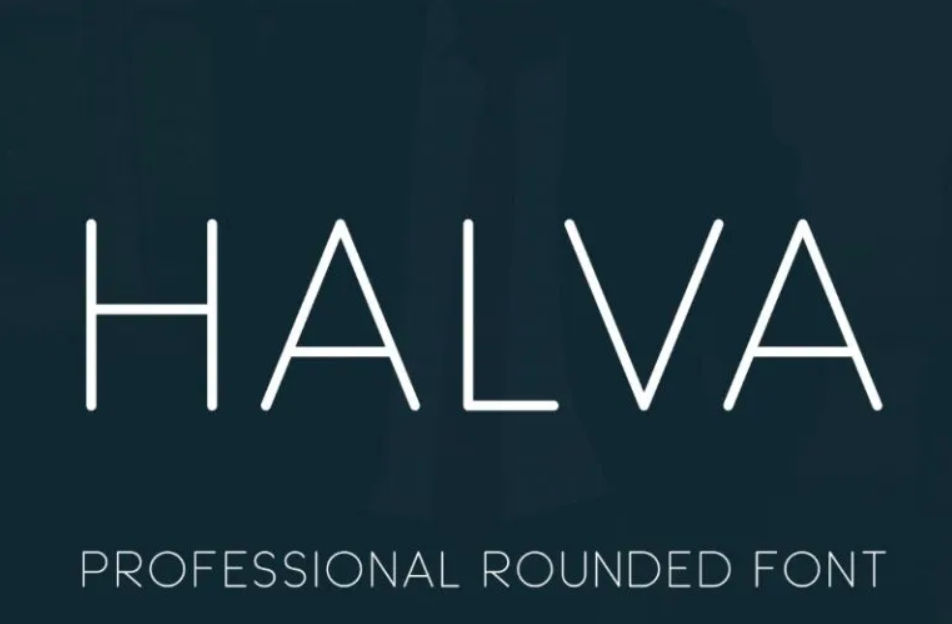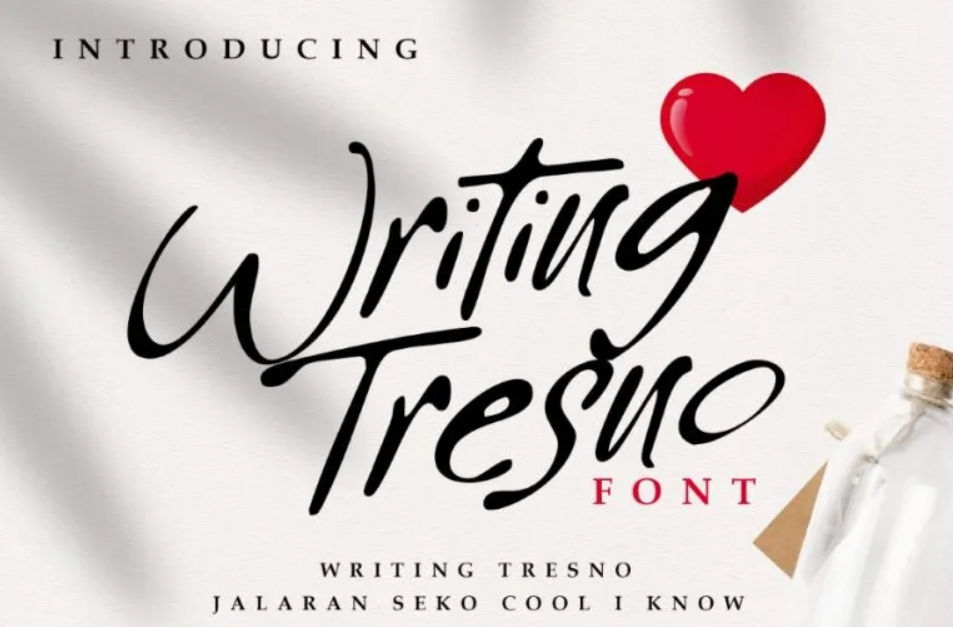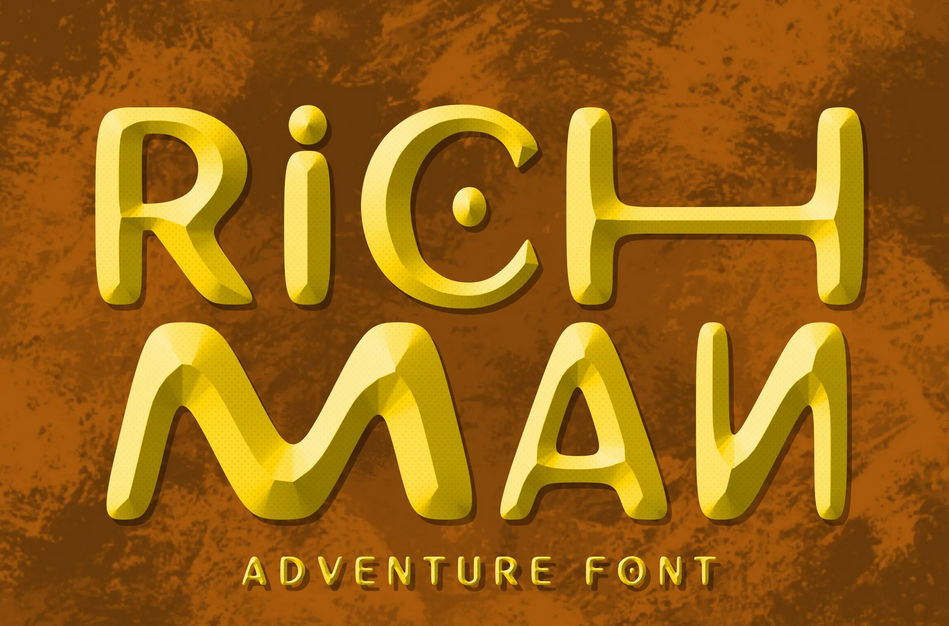
The best fonts for luxury brands cast a spell over elite clients with their splendid simplicity and high contrast. Their symmetrical geometric designs often enhance their luxurious appearances. Our fonts can not only provide you with those qualities but also uniqueness for your brand to be luxurious, attractive, and original.
Key takeaways:
- The most fitting font for luxury brands exhibits high contrast and simplicity.
- Combining different font styles can enhance originality and elevate a brand’s exclusivity.
- Font personality defines brand identity, and even bold fonts like Gojira, Brush Heats, and Richman can exude luxury when used with refined design elements.
10 Luxury Fonts for Brands for Glamorous Designs
What type of font is used for luxury brands? Luxurious brands tend to use fonts that have less complexity and clean lines. Most of the time, they have symmetrical letter shapes with impressive contrast. So, below are some of our fonts, which possess those characteristics along with their uniqueness.
1. HALVA
Halva’s symmetrical and simple letter shapes increase the font’s formal appearance. Additionally, the constant contrast will impress high-ranked clients.
2. Modern Deluxe
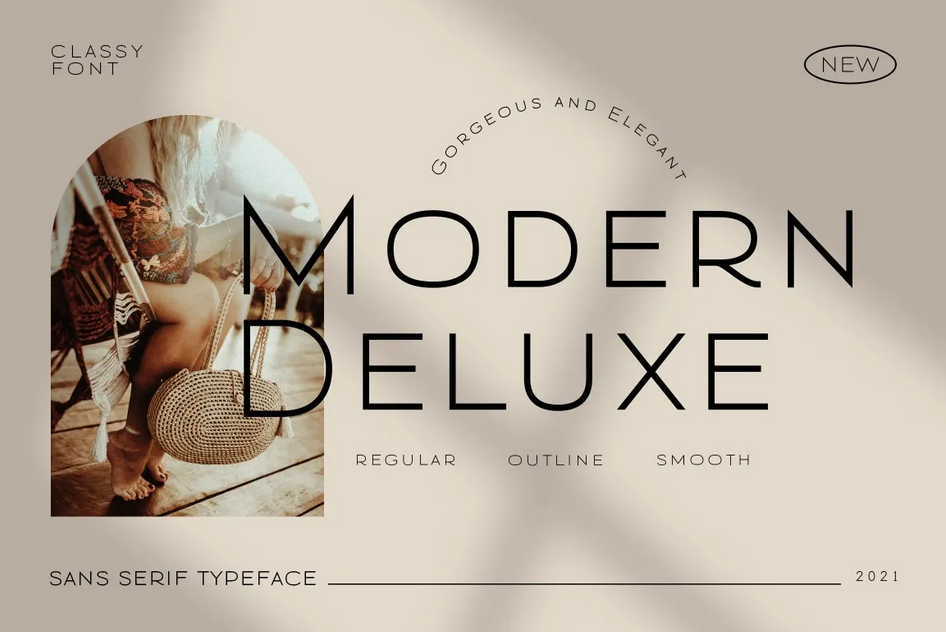
With a loose rhythm, Modern Deluxe presents clarity with the font’s undecorated letter forms and smooth strokes. It also offers regular, outline, and smooth versions.
3. Today Easter
Today Easter’s axis is straight yet versatile in that the letter shapes appear longer and bigger. Use its clarity and playfulness to give a friendly look to your luxurious brands.
4. Alena
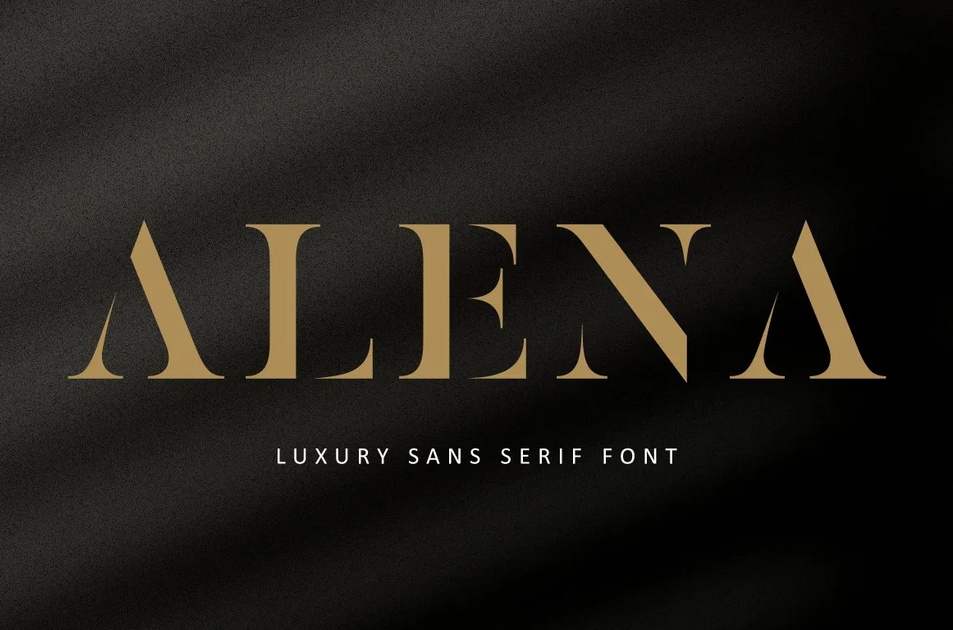
Alena’s legs are occasionally fading, yet the characteristic makes the font luxuriously unique. Showcase the uniqueness along with the gorgeous contrast for your brand.
5. Link Heart Font Duo
Link Heart combines two fonts into a harmonious pairing, with the beautiful slim letter shapes of serif and the graceful strokes of script.
6. Brown Chocolatte Font Duo
Brown Chocolate proves two fonts are better than one. Apply its high-contrast serif and lovely-looking script to lure high-class clients to your patisserie brands.
7. Night Mango
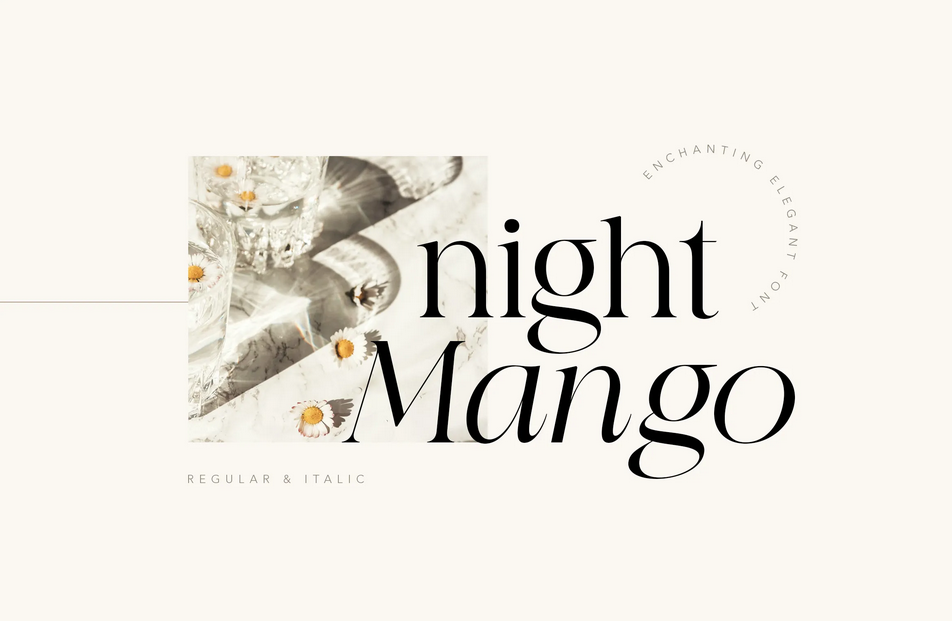
Night Mango is one of the best fonts for luxury brands whose axis is both oblique and straight. The font also carves a two-story ‘g’ letter to add its elegant value.
8. Stalysta
Stalysta impresses important clients with its expensive-looking high contrast. Also, the font showcases unique diacritics, pointy terminals, and attractive ligatures.
9. Almond
Almond’s medium weight and fantastic contrast exude both luxury and confidence. Catch your VIP clients with this elegant font on your branding projects.
10. Amsterdam Serif
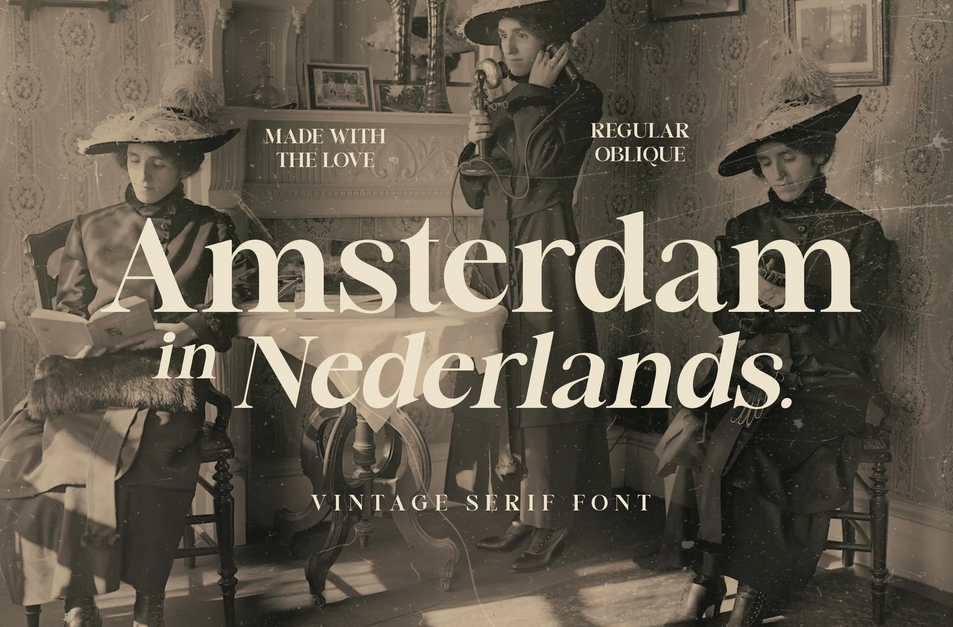
Amsterdam’s captivating contrast and aesthetic letterforms exude luxury, reflecting the grace and sophistication of high-class nobility.
10 Other Styles of Luxurious Fonts for Attractive Designs
Below is another list of our luxurious fonts with a twist of uniqueness. They will be wonderful to help you show off your brand’s personality, or you can use them to combine with various styles of fonts that you see fit.
11. Writing Tresno
Writing Tresno’s oblique axis and bouncy baseline represent the font’s modern side. In addition, the handwritten strokes and contrast will make your brand extraordinary.
12. Honey Butter Font Trio
Honey Butter’s majestic antler-like ligatures and swashes are harmonious with the font’s sweet letter shapes. Use them to make your brand look like a charismatic stag.
13. Wilder Artwork
Wilder Look exhibits one-of-a-kind letter forms with a fair thickness and slight texture. Showcase this font on your branding projects for out-of-the-ordinary designs.
14. Brush Heats
Brush Heats’ simplicity complements perfectly with the font’s undecorated letter shapes. Apply this font’s rough lines to impress clients with your brand’s originality.
15. Richman Unique Font
Richman Unique is one of the best fonts for luxury brands that possess adventurous letter shapes. Make your brand eye-catching and mysterious with this inspiring font.
16. Lettersiro Font Duo
Lettersiro’s clean strokes of the script font harmonize luxuriously with the balanced thickness of the sans serif font.
17. Paladise
Paladise’s dramatic ligatures and bold terminals are the strength of the font. Apply this font to your logo brand for a striking appearance.
18. Mother Shopping
Mother Shopping’s contrast is both cute and delicate. Turn your logo brand into a luxurious one by utilizing its contemporary ligatures and alternates.
19. Gojira Black
Gojira’s bold, brush-style strokes bring a raw yet refined energy, making it a distinctive choice for luxury brands that embrace a daring and rebellious sophistication.
More Fonts for Luxurious Looks?
High contrast and less complexity are typically the qualities that the best fonts for luxury brands have. However, those qualities can accidentally stain your brand’s personality. So, it is also important to be open to using fonts with other styles so that your branding projects will not fail to catch the attention of your elite clients.